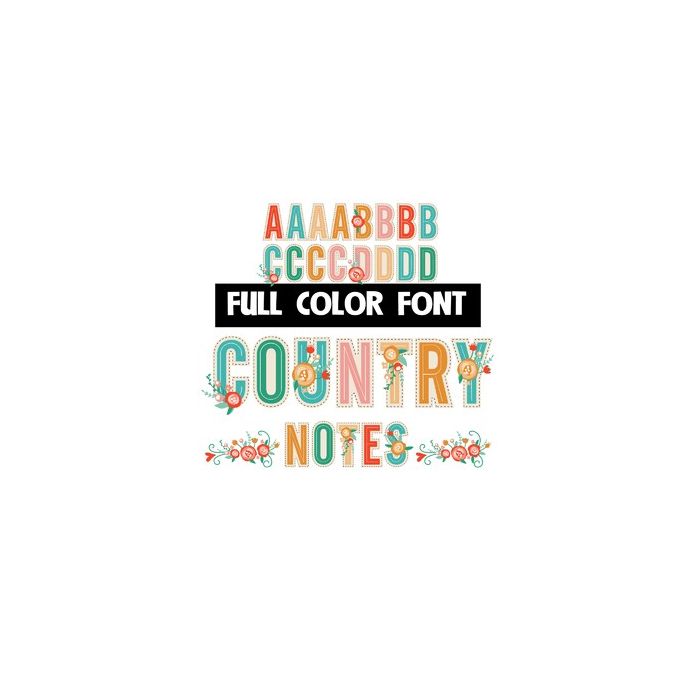
This full-color font features an earthy color palette and flowers with a mix of lettering. Type the greater than and less than glyphs to access a pretty floral flourish. There is an alt upper and lowercase with additional colors that you can access through Silhouette's glyph map.